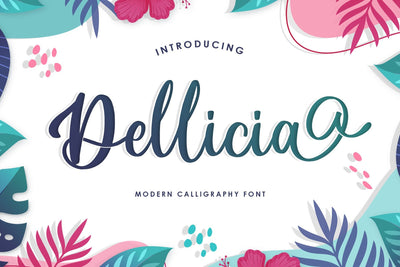
Dellicia Modern Calligraphy Font
Dellicia is a feminine modern handwritten font, carefully handcrafted to become a true favorite. Its casual charm makes it appear wonderfully down-to-earth, readable and, ultimately, incredibly versatile. Dellicia will look outstanding in any context, whether it’s being used on busy backgrounds or as a standalone headline!